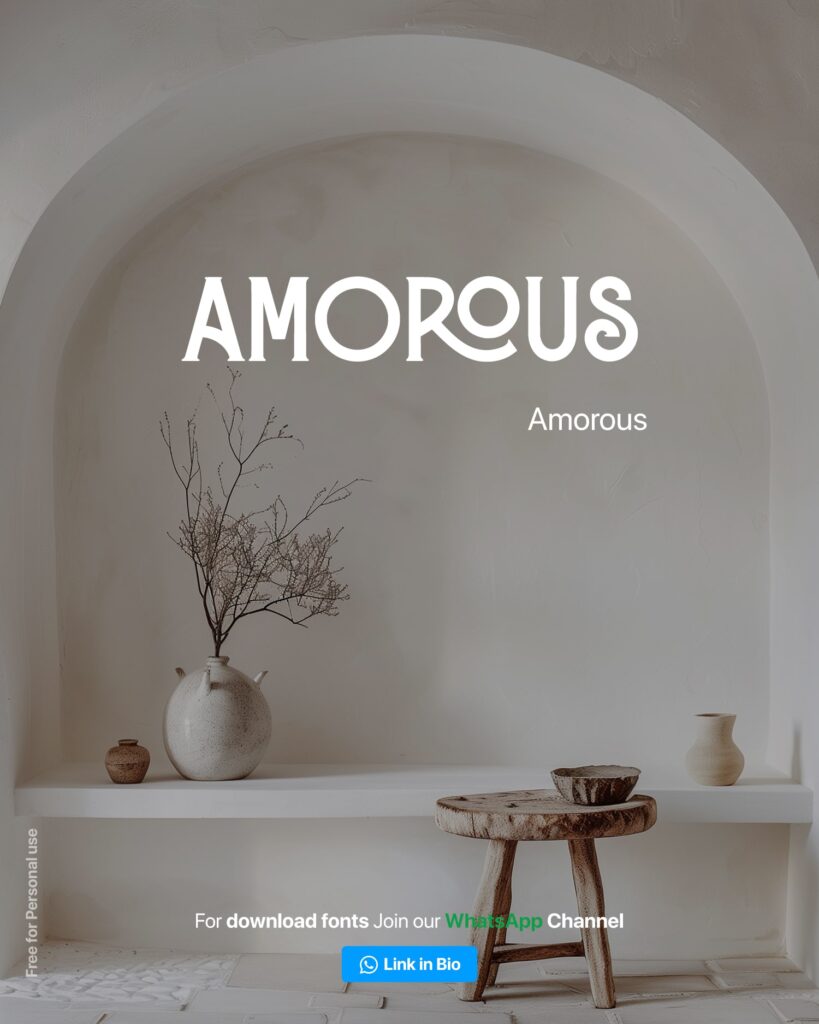
Handpicked Aesthetic Fonts Free download
Looking for aesthetic fonts free download options that elevate your design projects? Whether you’re designing a wedding invitation, a product label, or a professional logo, choosing the right font can make a huge impact. In this post, we’re sharing 6 handpicked aesthetic fonts that are completely free and perfect for modern creatives.
🔥 Why Aesthetic Fonts Matter in Design
Fonts do more than display text—they express emotion, personality, and brand tone. A well-chosen aesthetic font can:
- Make your logos look more luxurious
- Add charm to wedding invitations
- Give your packaging a premium feel
- Enhance social media posts and branding kits
Aotten – The Bold Beauty
A contemporary display font with a clean and minimalist vibe. Perfect for logos and editorial headlines.
✅ Use for: Logos, posters, packaging
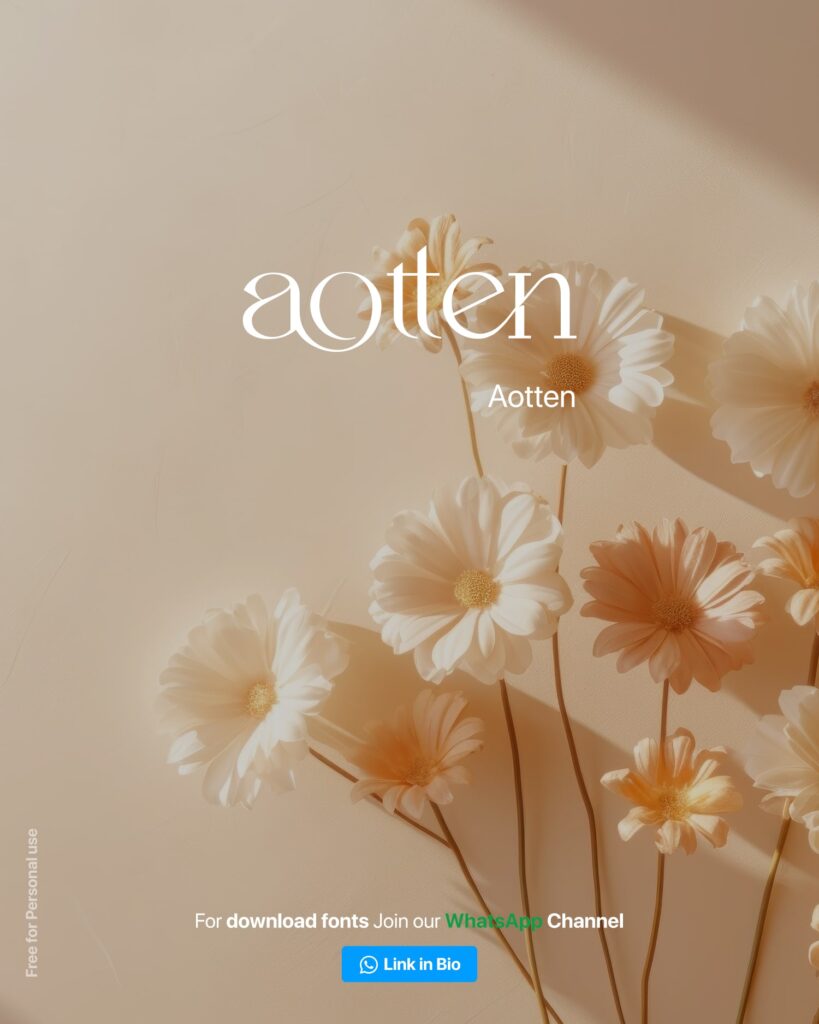
Astraal – Elegant & Serif
This serif font adds a sense of sophistication to any design. Ideal for wedding stationery and brand identities.
✅ Use for: Wedding albums, brand kits
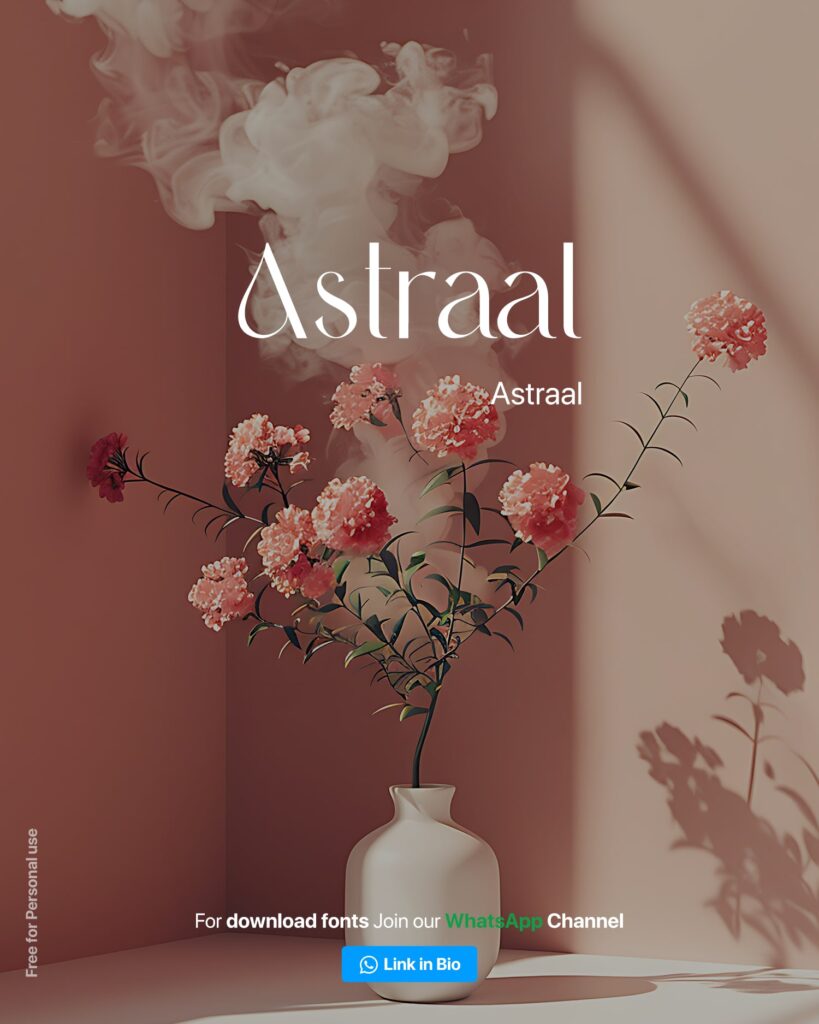
Qlassy – Classy & Chic
A modern calligraphy font that combines charm with readability. Works well on invitations and luxury branding.
✅ Use for: Invitations, product tags
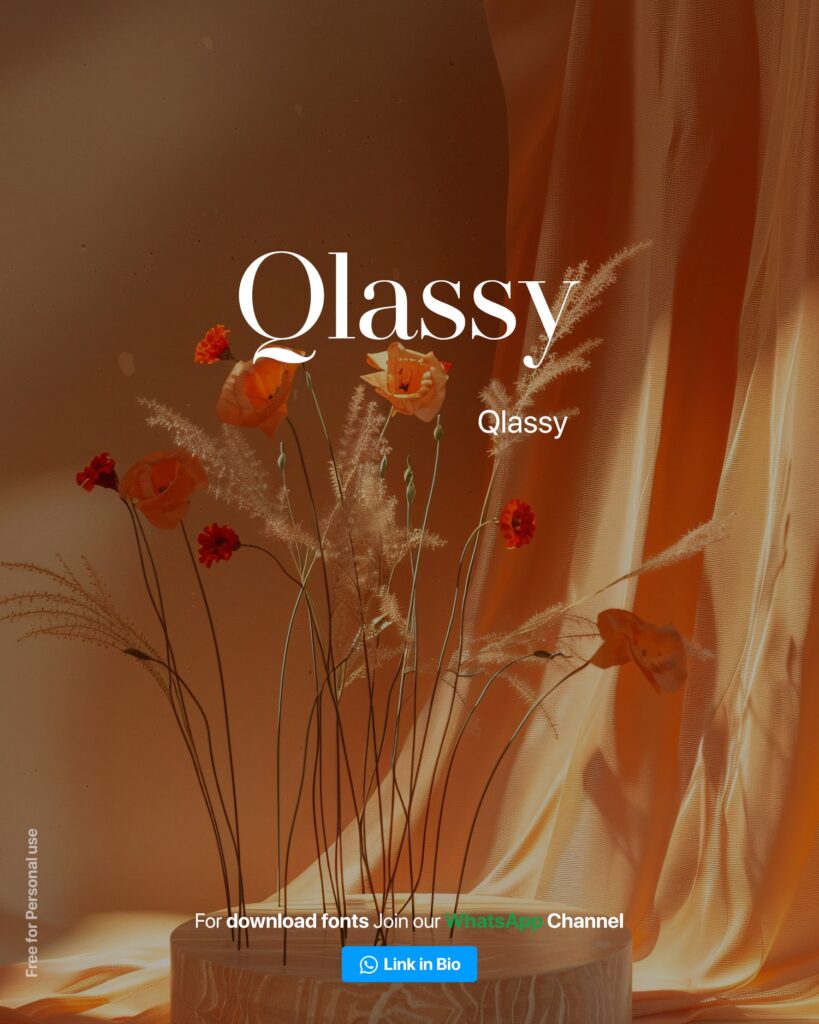
Veldman – Signature Feel
A beautiful script font with natural flow, mimicking handwritten signatures.
✅ Use for: Fashion brands, social posts
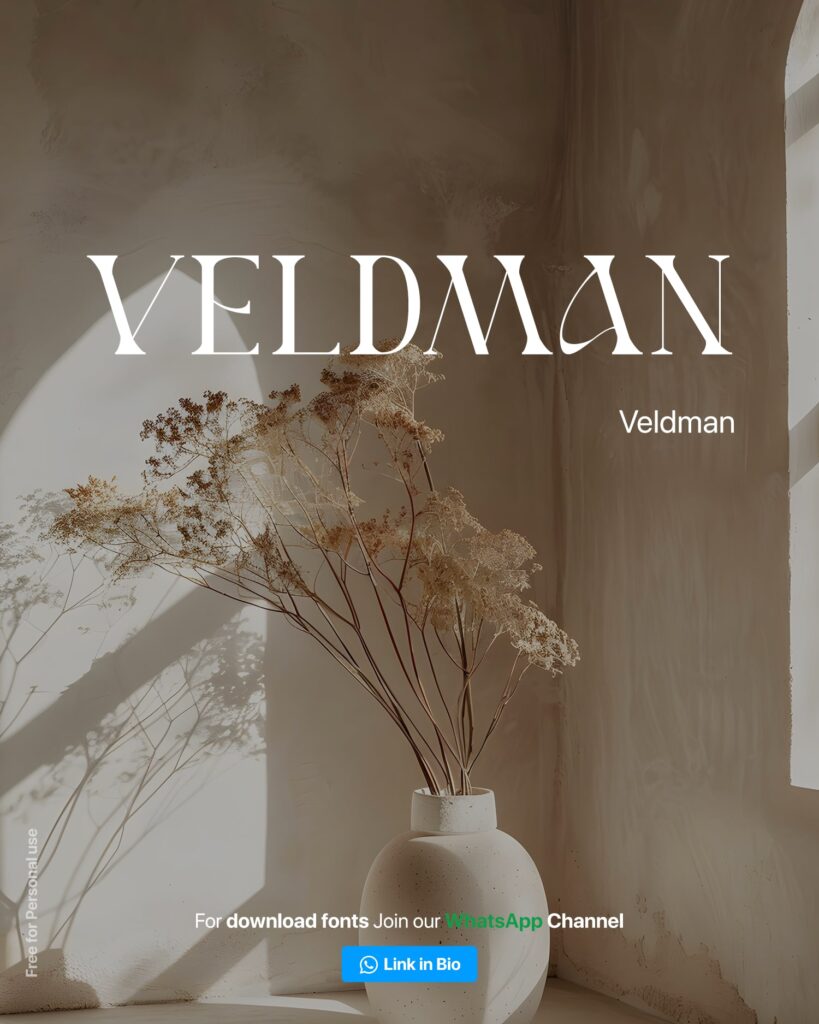
Grader – Modern Sans-Serif
Clean and modern, this sans-serif font is great for minimalist designs and tech-focused brands.
✅ Use for: Branding, websites
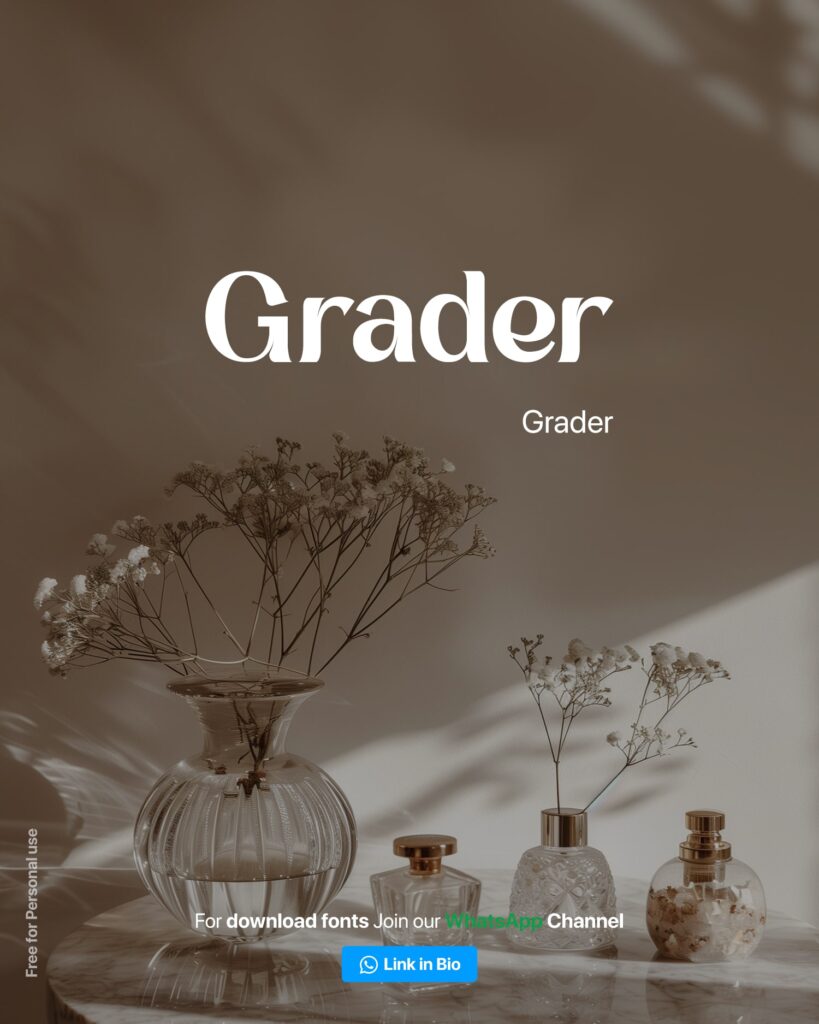
Amorous – Romantic Script
A romantic script font perfect for weddings and feminine designs.
✅ Use for: Wedding invites, Instagram posts
These aesthetic fonts are perfect for giving your designs a trendy, elegant, and professional touch. Whether you’re a designer, content creator, or small business owner, having the right typography toolkit is key.
Aesthetic fonts are, to any designer, what a magic wand is to the magician. Be it the logo, packaging, wedding album, or poster; the right aesthetic font can charm its way into making an everlasting impression on the viewer’s mind. And, as if that is not enough, most of these fonts are available for free download, so all designers can use them. Explore, experiment, and find the perfect font to bring your creative vision into life.
You can use these aesthetic fonts in logo design, packaging designs, poster designs, wedding album designs and more.